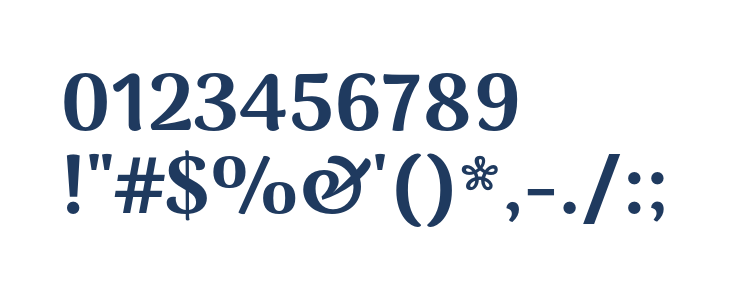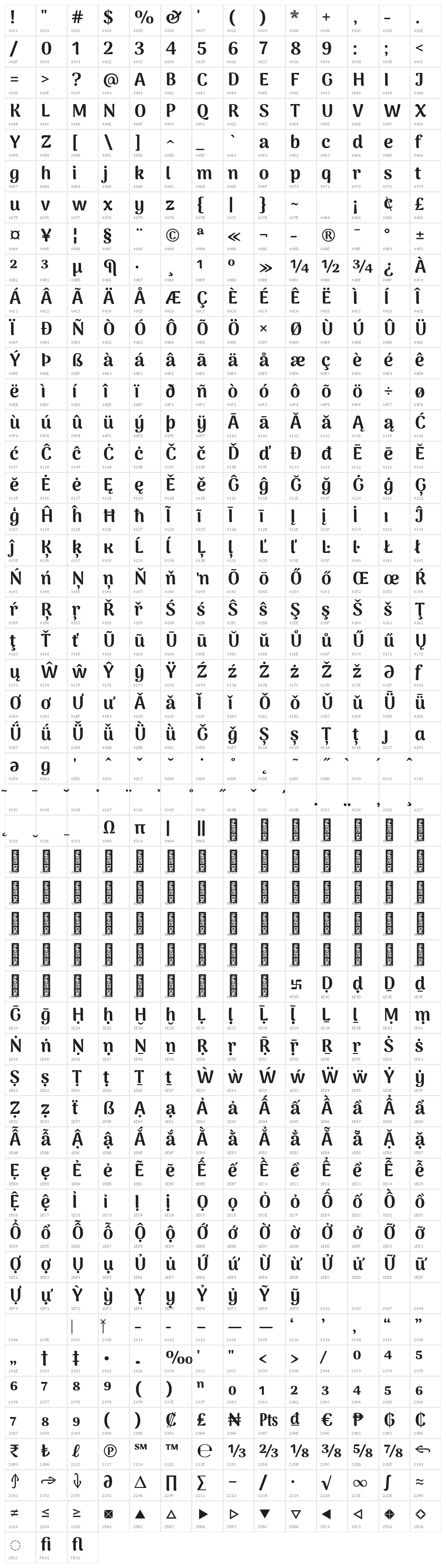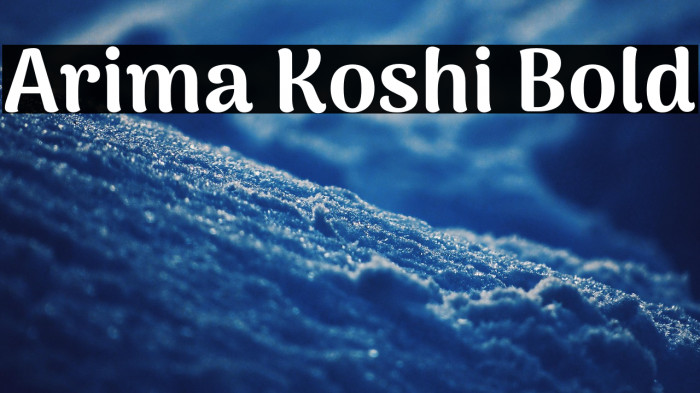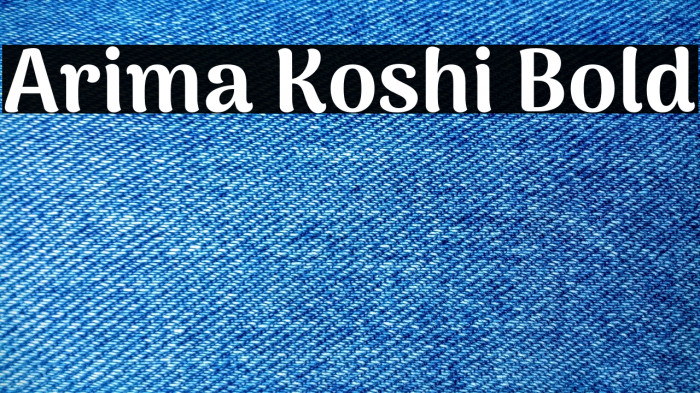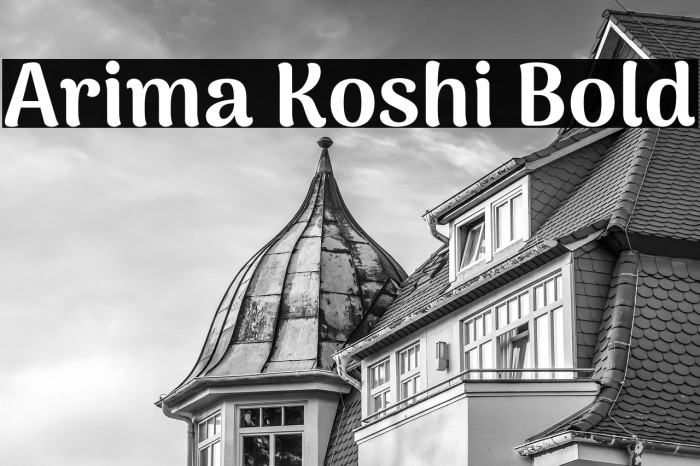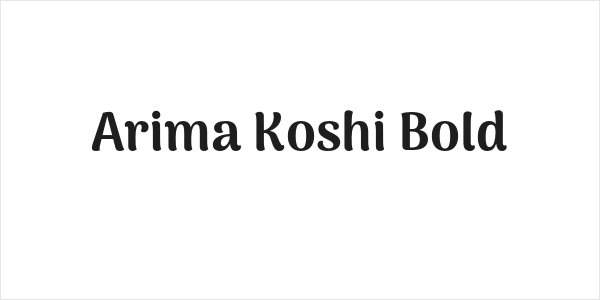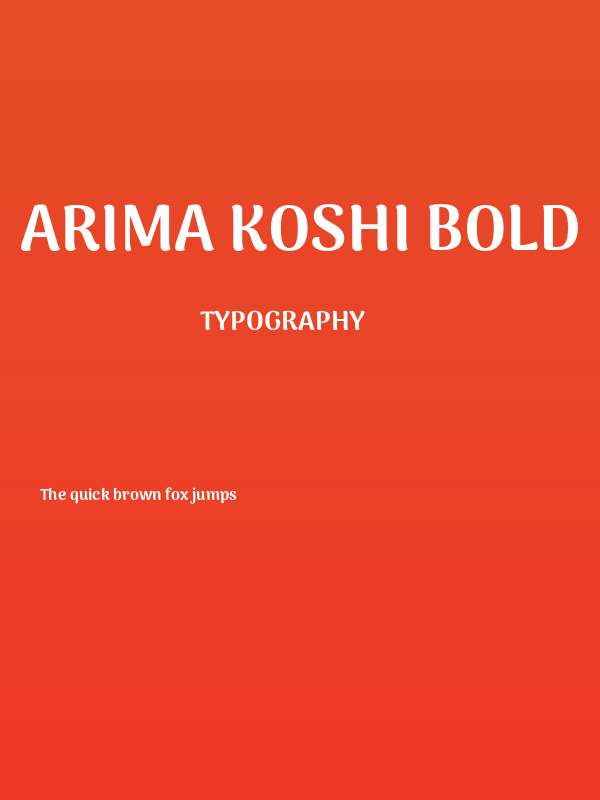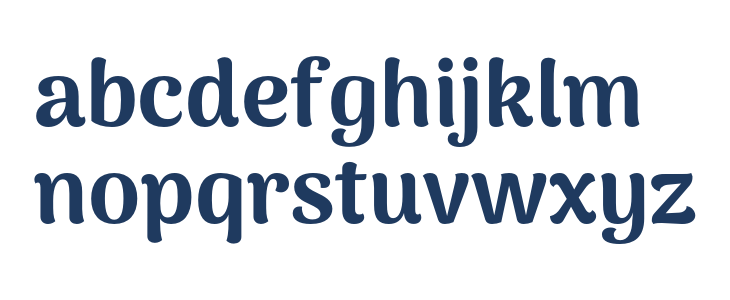
Arima Koshi Bold Font
Arima Koshi Bold Description
This font features a playful and rounded style, characterized by its bold and friendly appearance. The letters have a smooth, flowing quality with slightly exaggerated curves, giving it a whimsical and approachable feel. The uppercase letters are well-proportioned, while the lowercase letters maintain a consistent roundness that enhances readability. The numerals are clear and distinct, matching the overall style of the alphabet. Special characters are thoughtfully designed, integrating seamlessly with the rest of the font. This font's boldness and unique character make it suitable for a variety of creative applications.
Overall StylePlayful, Whimsical
Proposed ProjectsIdeal for children's books, playful branding, posters, and creative design projects.